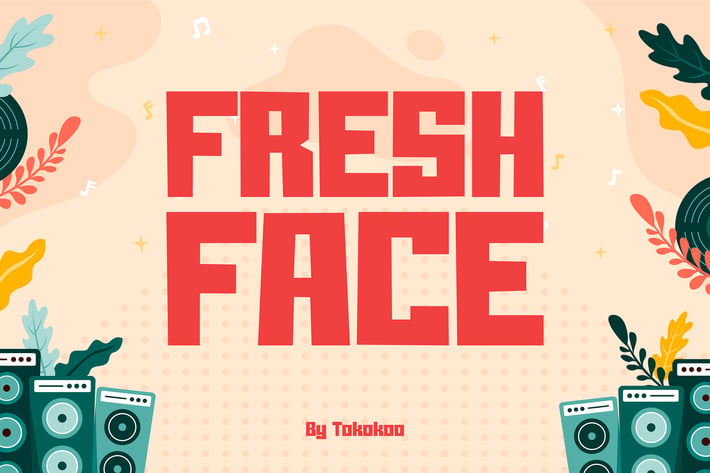
Freshface
Freshface is a bold display typeface with geometric forms, blocky rhythm, and modern-retro attitude—made to grab attention and deliver high-impact messages in visual-heavy designs. Its straight edges, square counters, and tight proportions give it a powerful, rhythmic flow that's ideal for urban, event-based, and youth-focused branding.
This font blends retro poster charm with a fresh, contemporary vibe, making it perfect for bold typographic hierarchies. Whether you're creating festival posters, merchandise, or branded banners, Freshface sets the tone with clarity and confidence.
From summer music events to indie gigs, Freshface is the go-to font for designers crafting promotional posters, eye-catching billboards, and mobile-ready visuals. It instantly resonates with young audiences, delivering that essential “bold but friendly” character for event identities, youth campaigns, app UIs, and pop culture flyers.
Its punchy personality ensures your words are not only read—but remembered.
Key Features :
Design That Commands Attention
- Strong geometric structure with tight spacing and modular consistency
- Perfect for poster design, digital ads, ticket stubs, album covers, and more
- Retro appeal combined with clean, contemporary usability
- Made to balance strong headlines with supporting content
Multimedia Ready
- Built to look good across digital and print
- Scales well from social feed graphics to outdoor signage
- Ideal for indie brands, music campaigns, product packaging, and youth merchandise
Perfect for poster designers, music label creatives, merch makers, and event organizers.